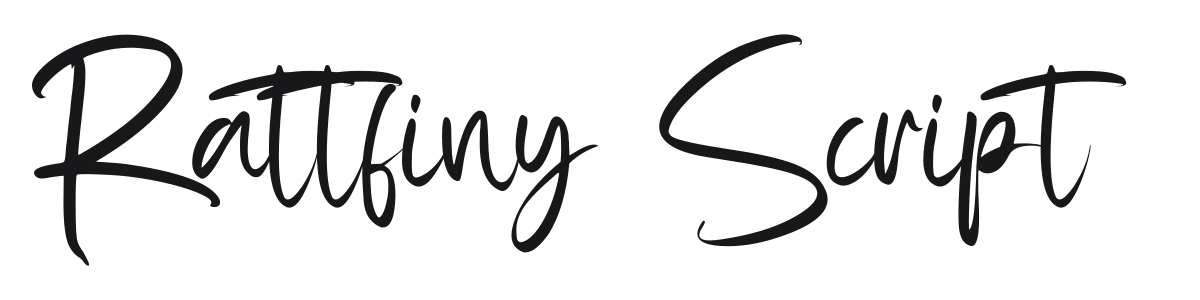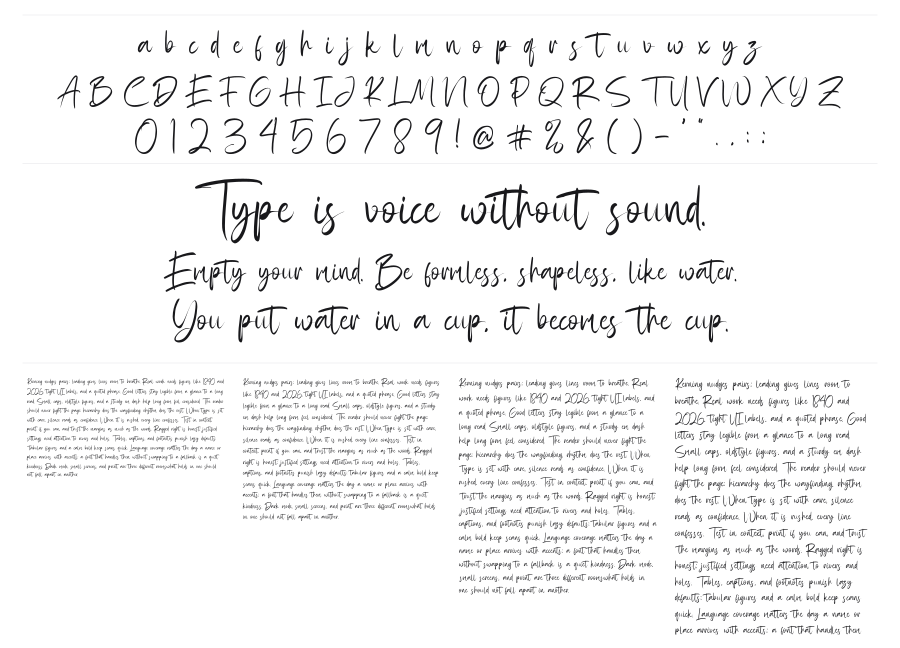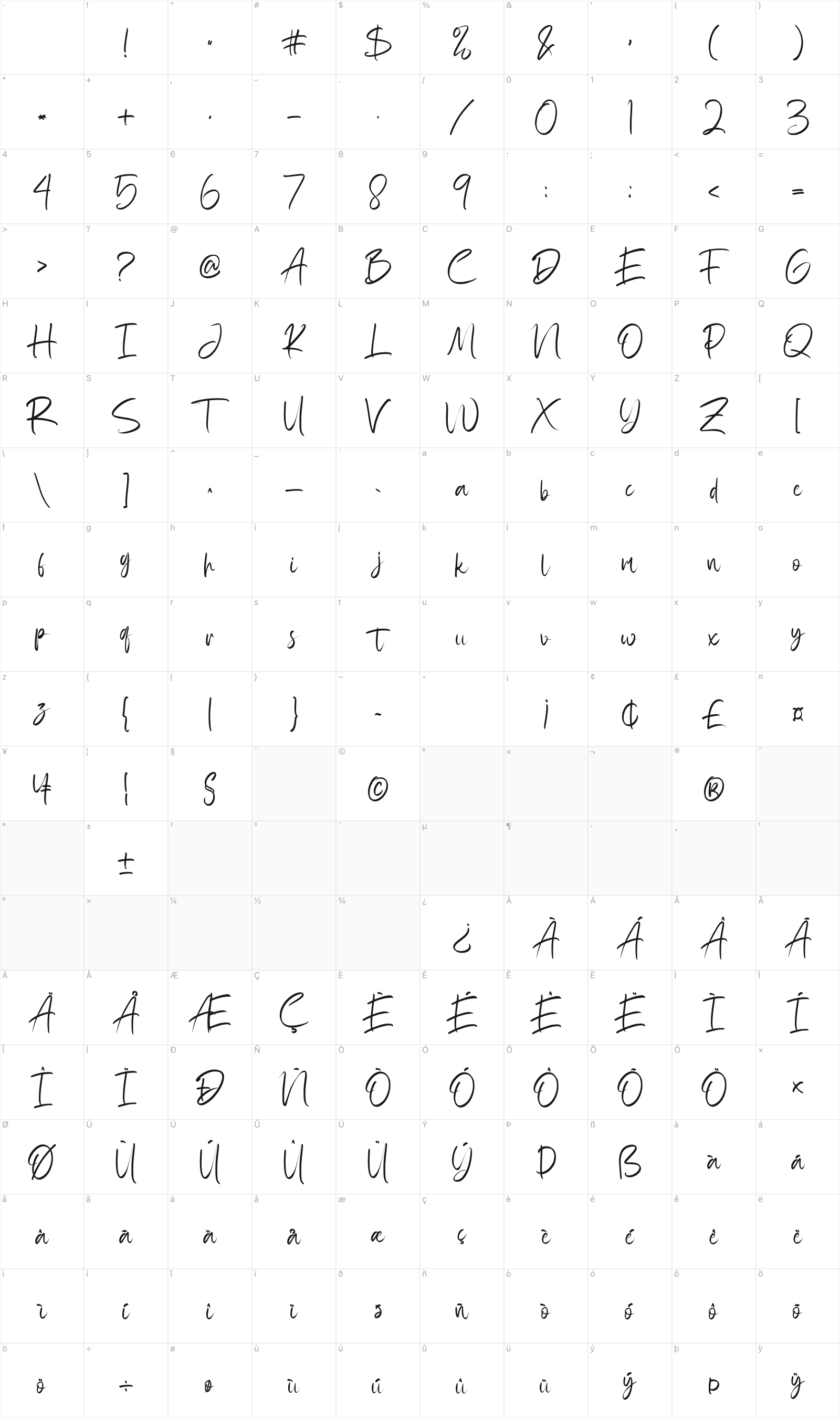
Rattfiny Script
Rattfiny Script is a contemporary casual script with fluid, looping strokes and natural calligraphic energy. The moderate stroke contrast and gently bouncing baseline keep it feeling handwritten without becoming hard to read. It suits wedding stationery, branding, and lifestyle packaging where a personal, handcrafted touch matters.